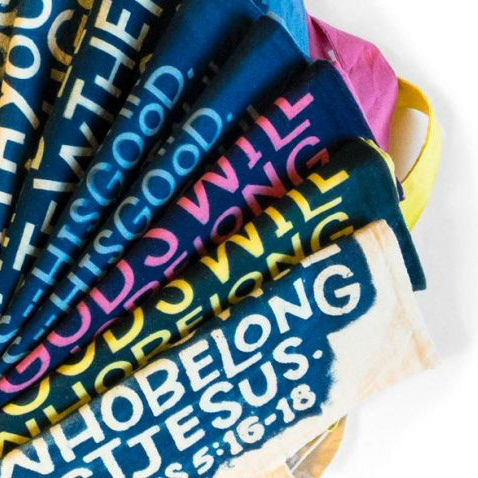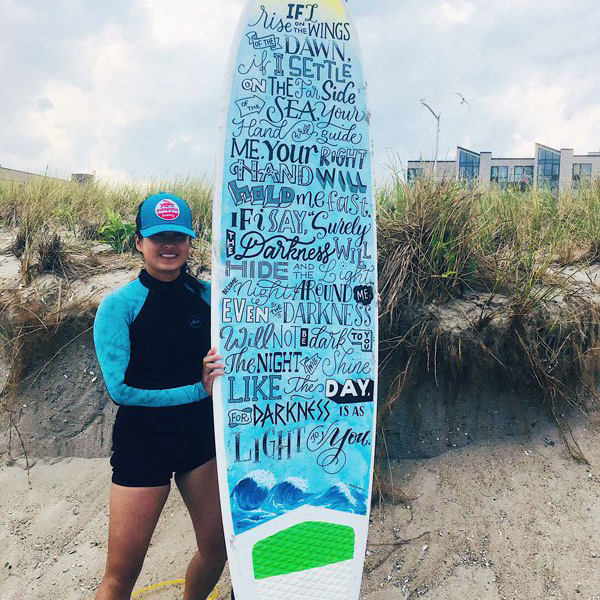
If you are brand new to the wonderful world of hand-lettering and calligraphy, this video is going to help you find the right calligraphy pens to get your start!
Calligraphy is a very broad term that covers a whole range of styles and “hands” (an old-fashion way of describing a style). Generally speaking, there are two types of calligraphy pens: the pointed nib and the broad-edge nib. And within those two categories, you’ll be presented with a variety of options with different sizes and flexibility.